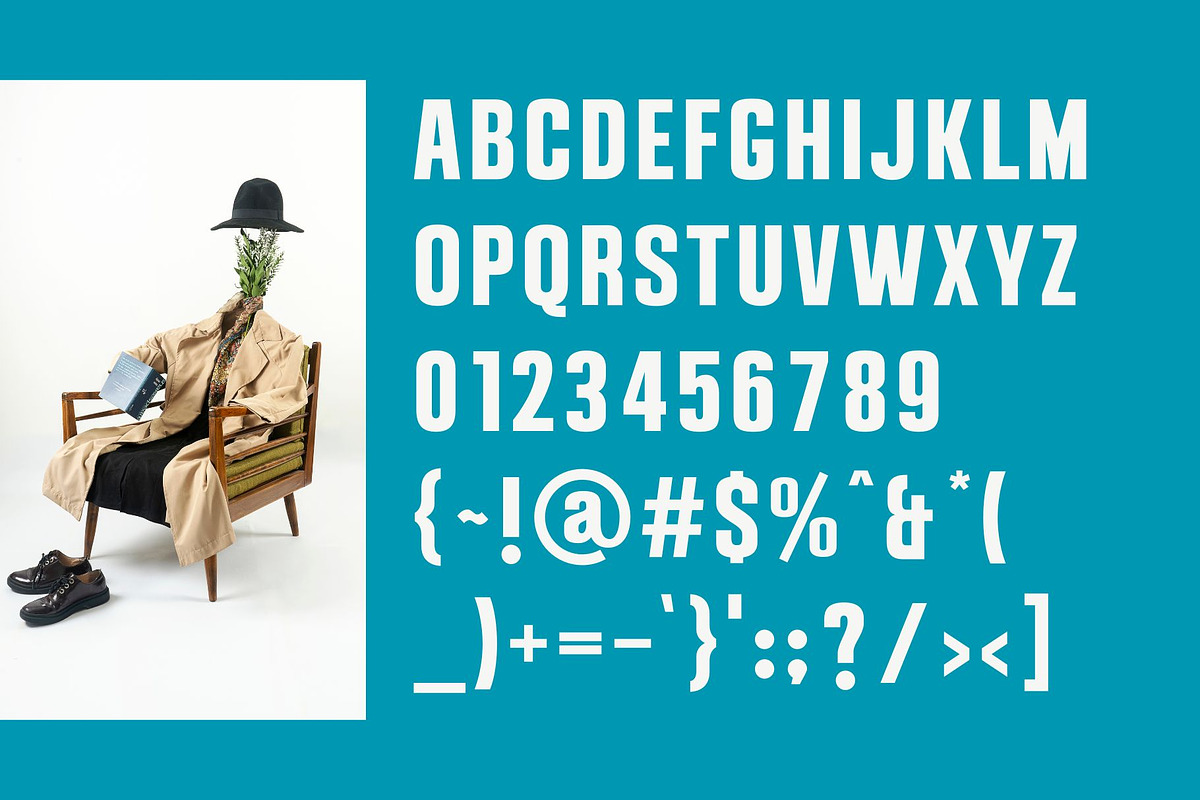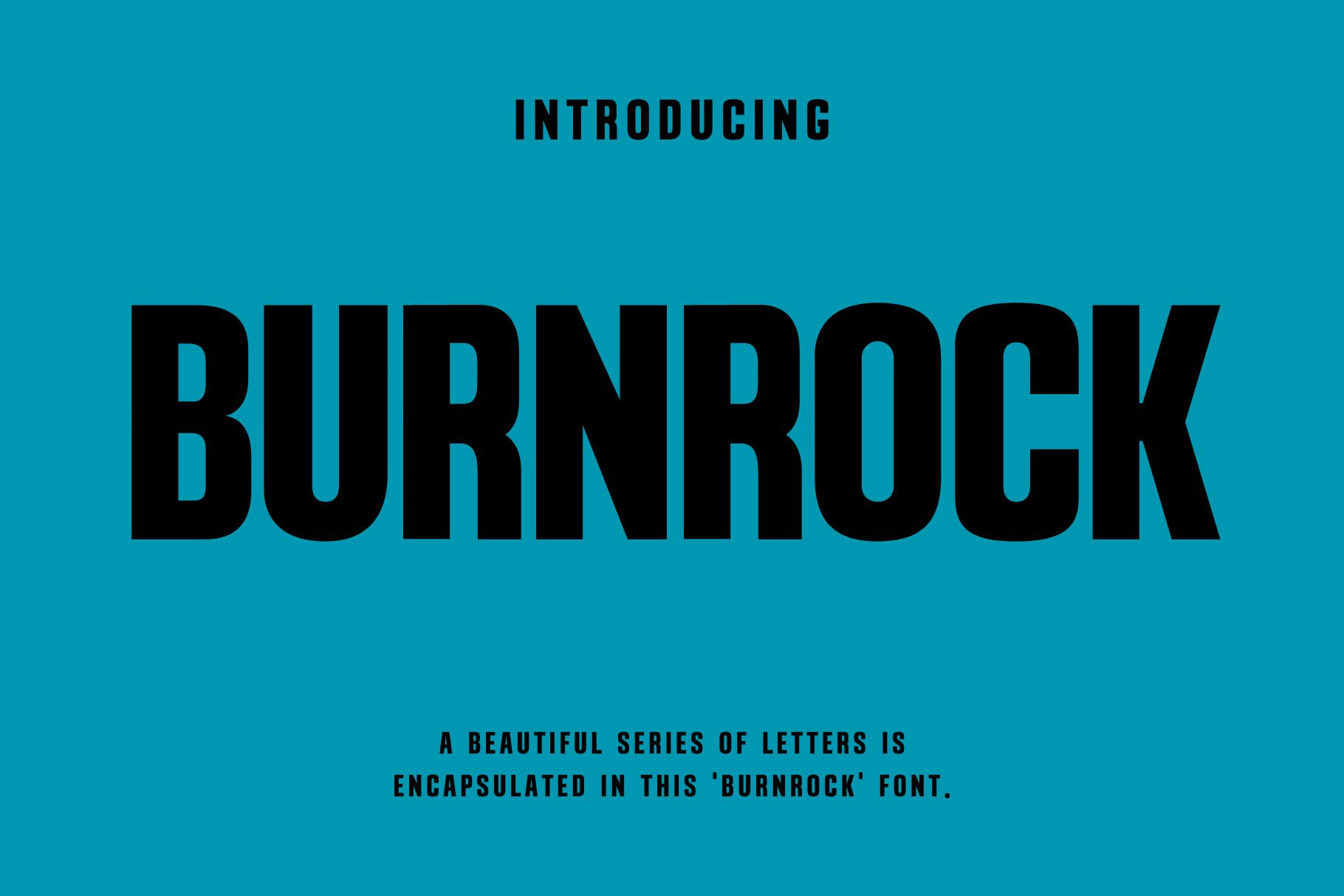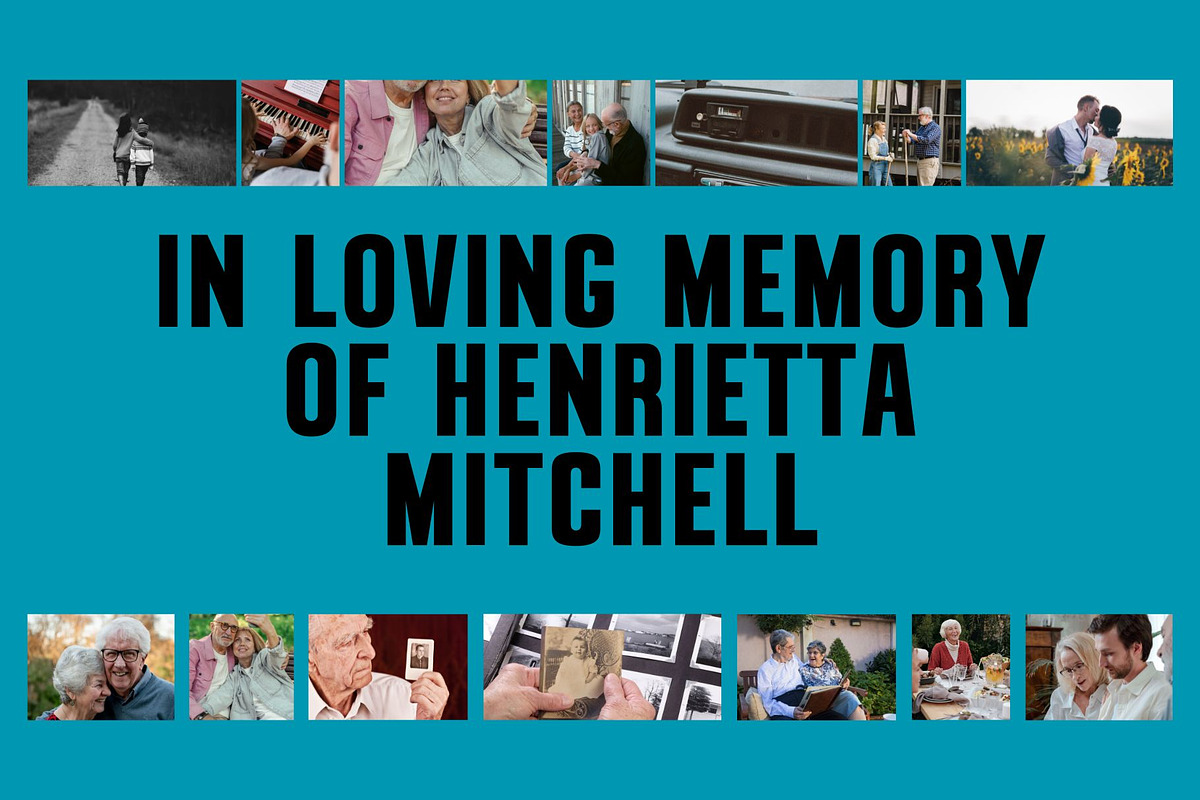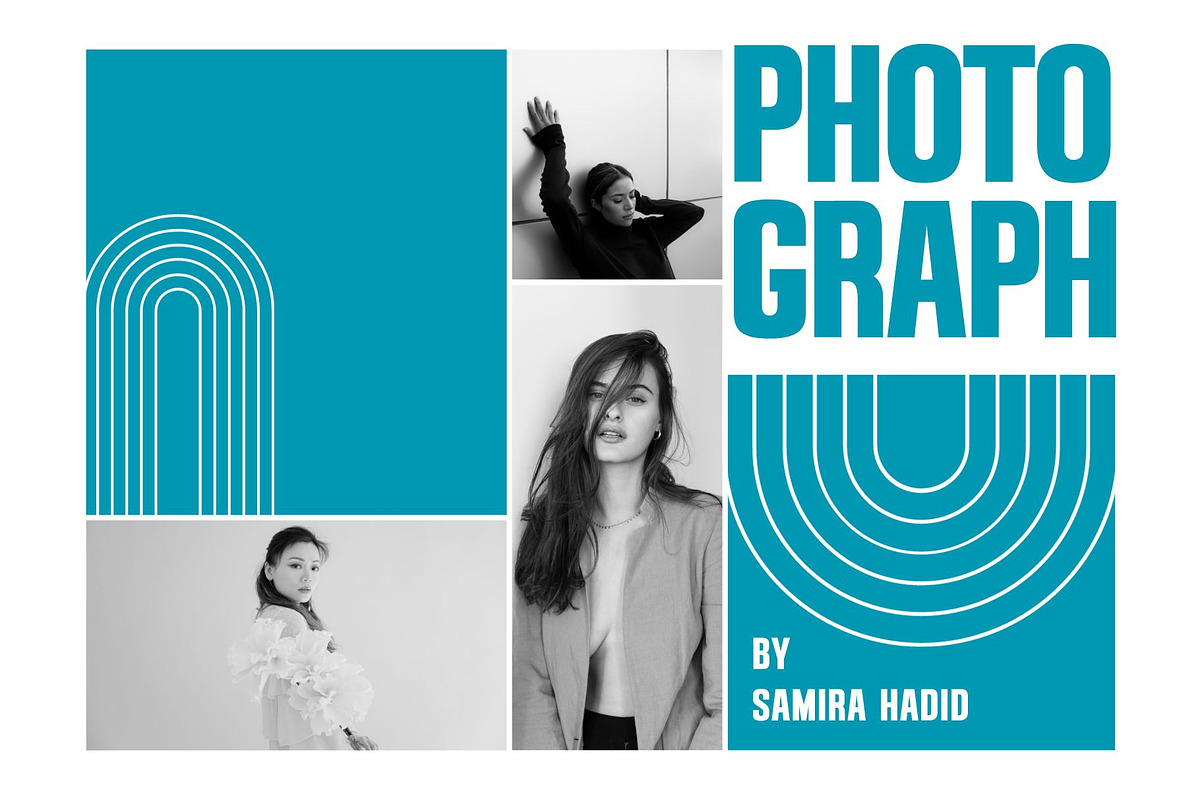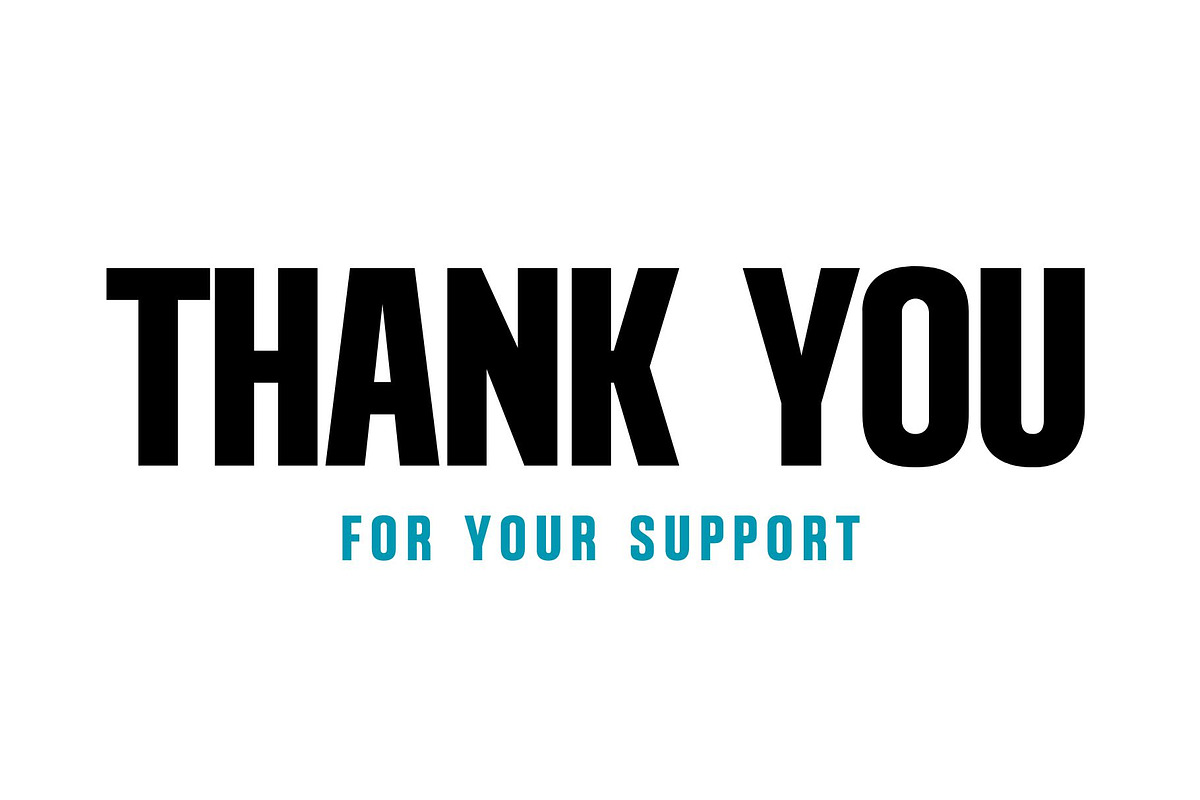
Burnrock - Modern Sans Typeface
Introducing 'Burnrock' Font:
Burnrock is a unique and futuristic font for branding and logo designs Elegant serif typeface combined with a classy and modern style. This type of font is very suitable for your various needs such as branding projects, logos, wedding designs, social media posts, advertisements, product packaging, product designs, labels, photography, watermarks, invitations, stationery, and any project, created with high level of readability. you will not be disappointed if you buy this font!!
Ideal for:
- Modern Designs
- Fashion Brands
- Photography
- Advertising Campaigns
- Social Media
- Web Design Projects
- Ready for Creative Expression
- Immaculately Crafted Letters